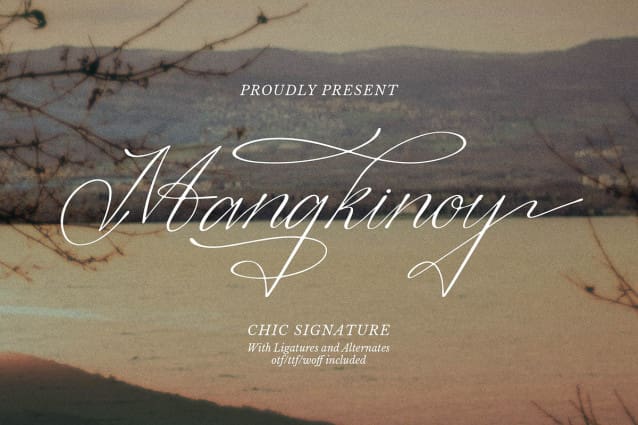
Mangkinoy Font
Mangkinoy Font | Chic Signature Font, from Denustudios, suitable for any projects such as: logos, branding projects, homeware designs, product packaging, mugs, quotes, posters, shopping bags, t-shirts, book covers, name card, invitation cards, greeting cards, label, photography, watermark, special events, and all your other lovely projects that need a Chic Signature Font taste.